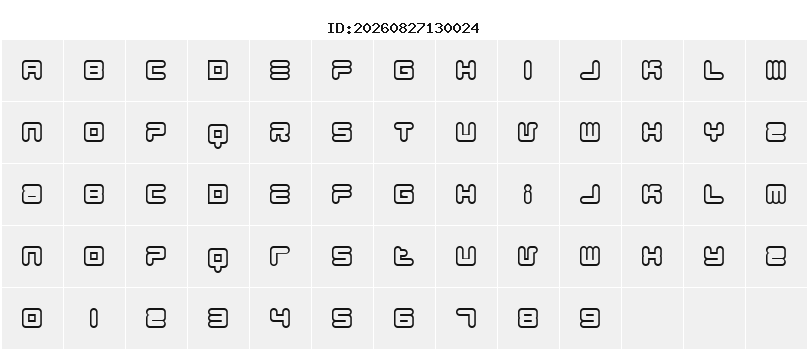
• Font Name: 1900.80.5
1900.80.5.ttf is a modern, elegant sans-serif font designed for ultimate readability and visual harmony. Perfect for branding, headlines, web design, and print materials.